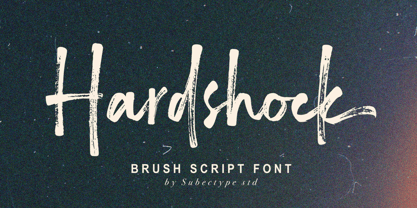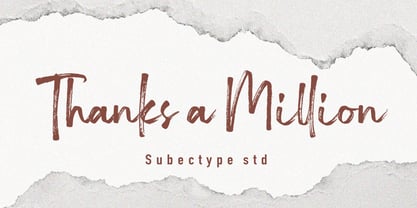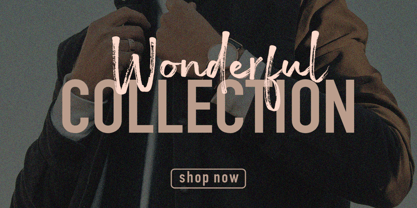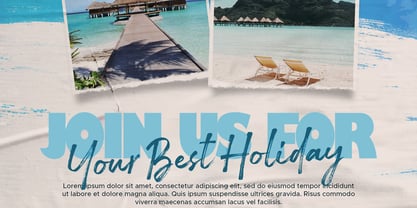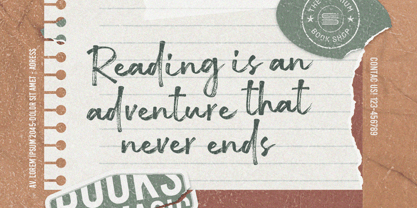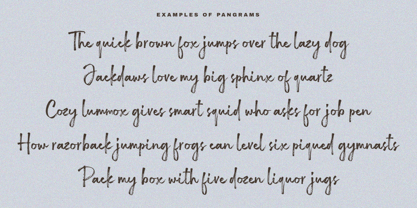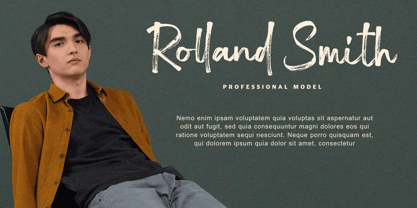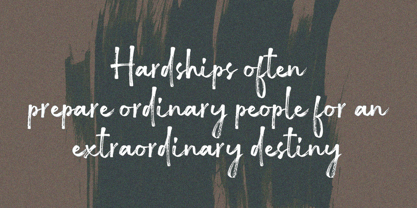
Hardshock
by Subectype
The Hardshock Font Family was designed by Rangga Subekti and published by Subectype. Hardshock contains 1 styles.
Hardshock is a handwritten brush script font. This font imparts a casual and natural appearance brush style. This font can convey a range of moods, from relaxed and friendly to artistic and eccentric. Making your message or artwork visually engaging and deeper in its impact. Hardshock is ideal for logos, quotes, product packaging, or anything which needs a typographic turbo-boost.
Designers: Rangga Subekti
Publisher: Subectype
Foundry: Subectype
Design Owner: Subectype